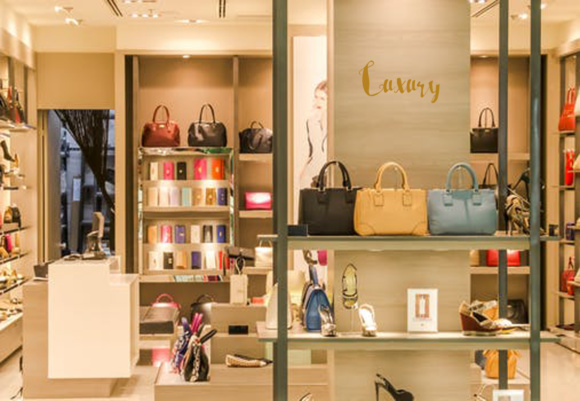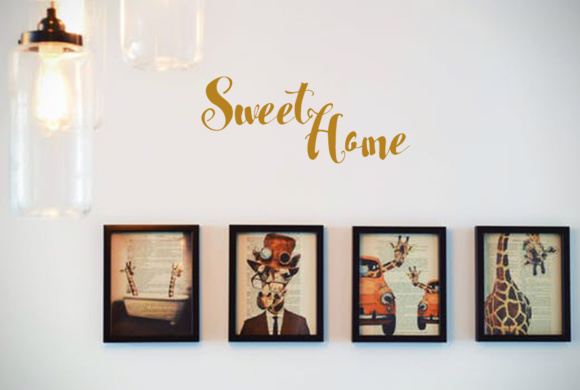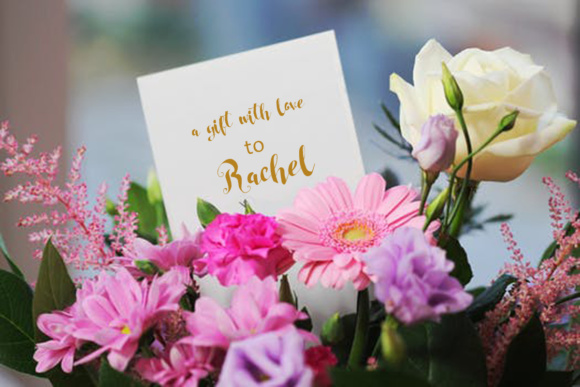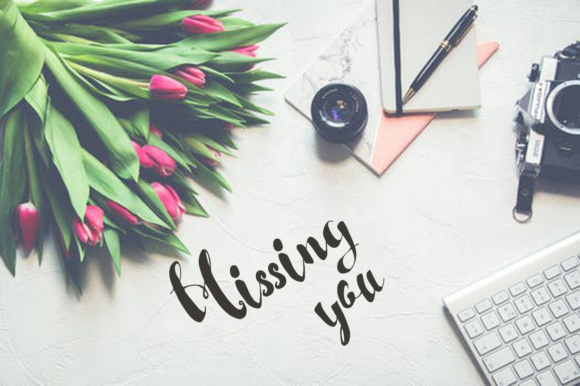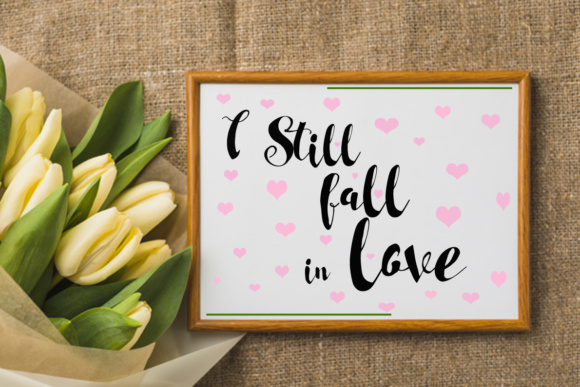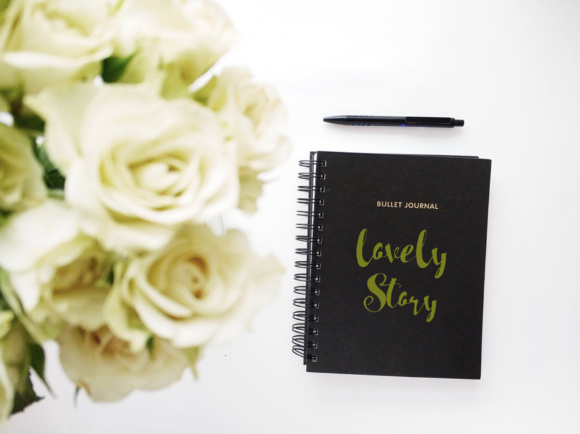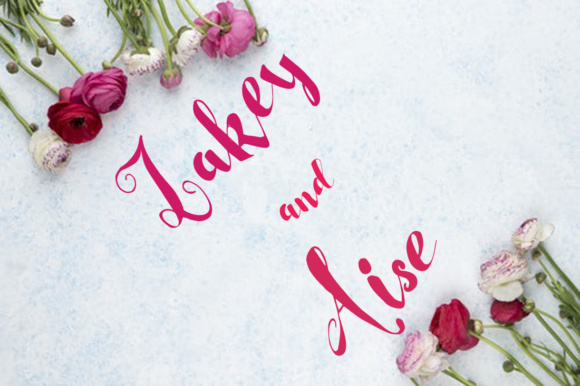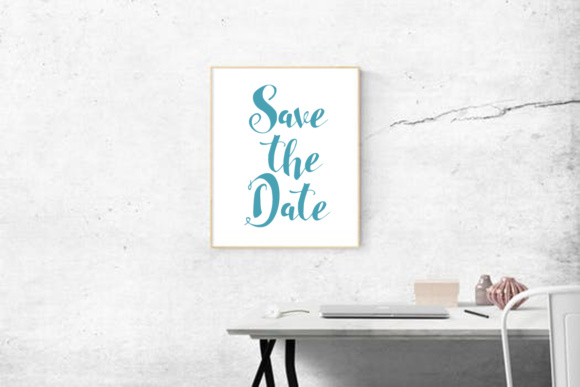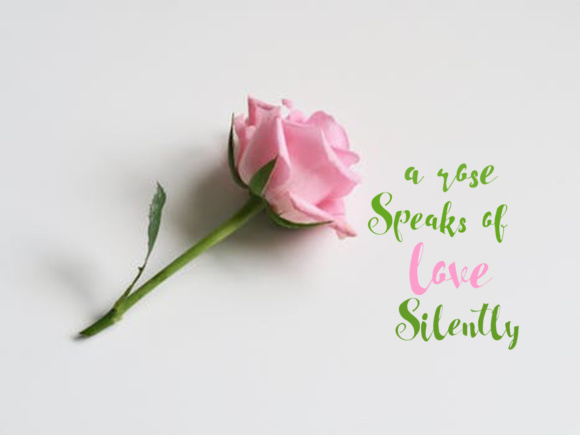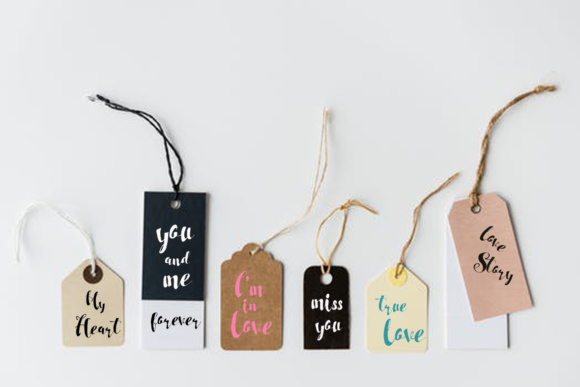
Bold Lovely Font
About Bold Lovely Font
Bold Lovely is a modern and elegant calligraphy font, suitable for use in print projects and more. This font has a romantic feel to it, and works well in combination with sleek and clean serif and sans serif fonts.